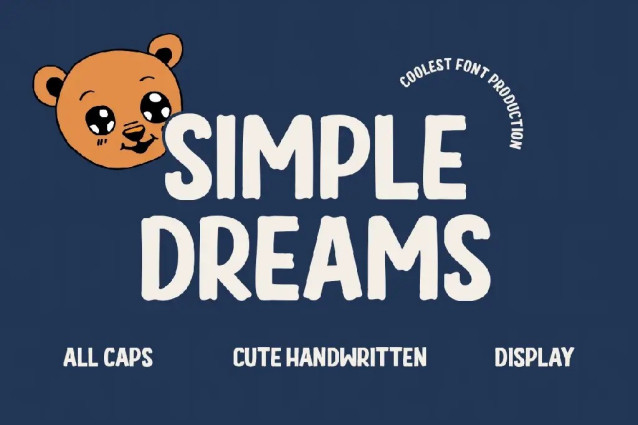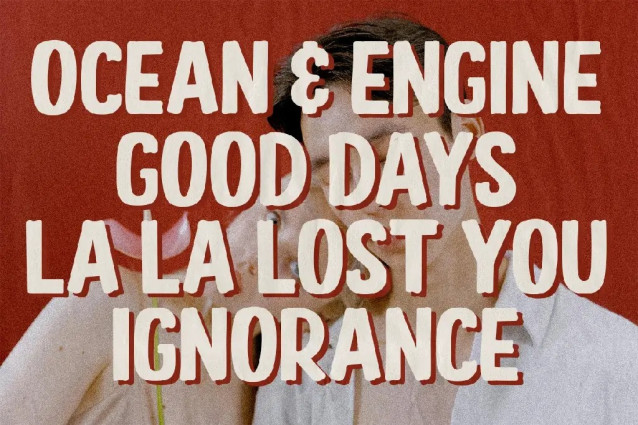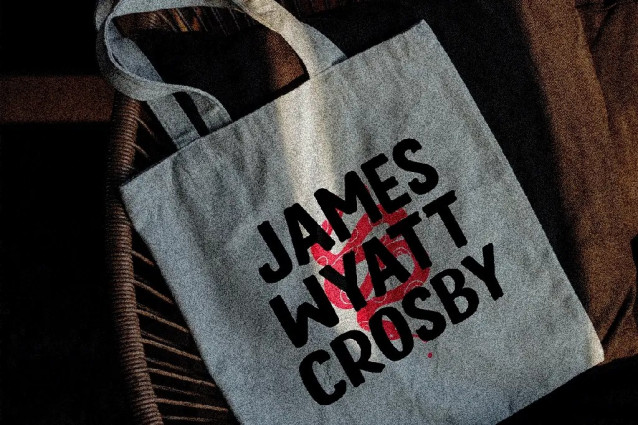
Simple Dreams Font
Simple Dreams Font is a bold and playful handwritten display font that combines modern charm with a cute, handcrafted touch. This fancy font is perfect for creating standout designs that feel friendly and professional at the same time. Ideal as a branding font, poster font, or logo font, Simple Dream Font brings warmth and personality to every project, from packaging and merchandise to social media graphics and editorial layouts.
Designed for versatility, this modern font works beautifully for both digital and print creations. Its smooth all-caps style adds character to your headlines, while maintaining excellent readability. Whether you’re designing for lifestyle brands, creative campaigns, or children’s products, Simple Dream Font delivers a fresh, stylish look that captures attention. Elevate your designs today with this cute handwritten display font and make your message truly stand out.